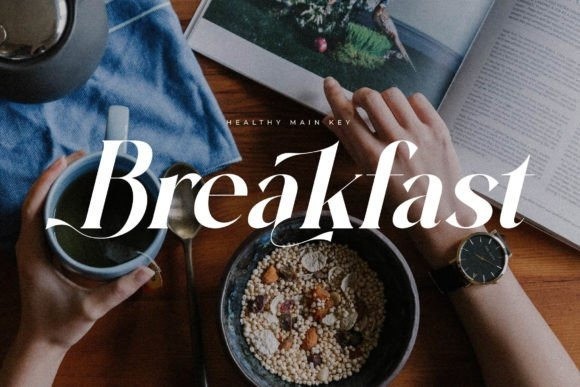
Brilge Relfast Font
Say hello to Brilge Relfast Serif Font, created by Storytype, A serif modern and classic typeface that has own unique style & modern look.